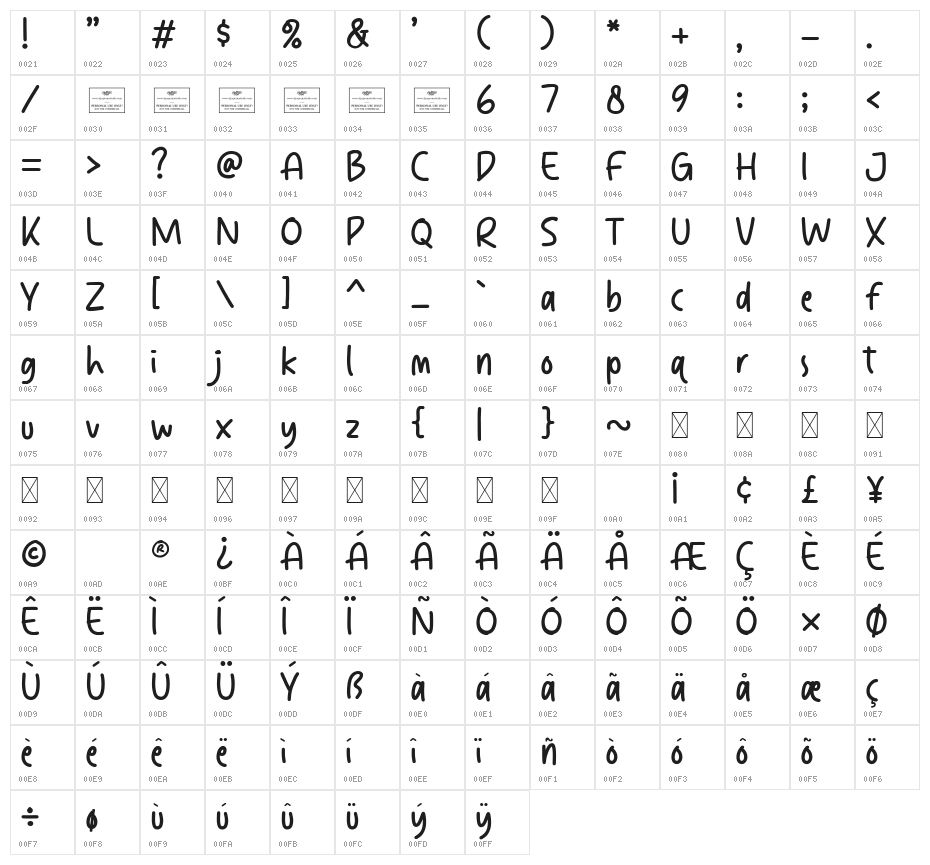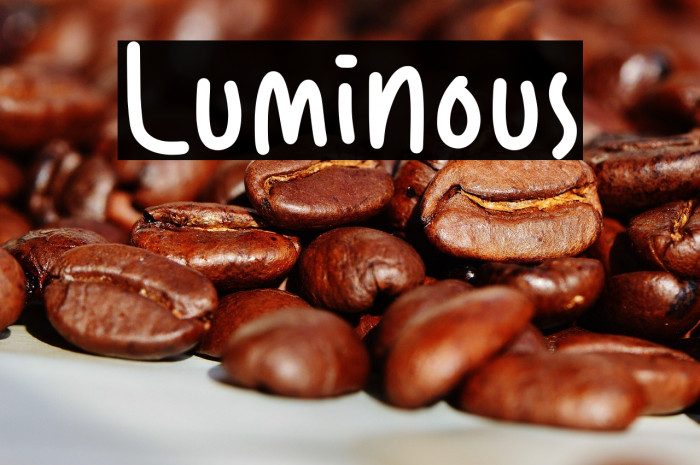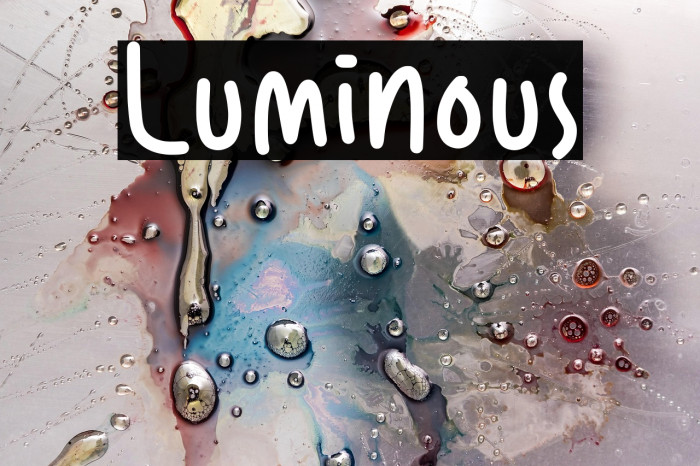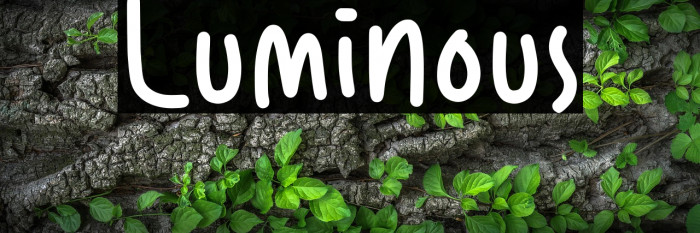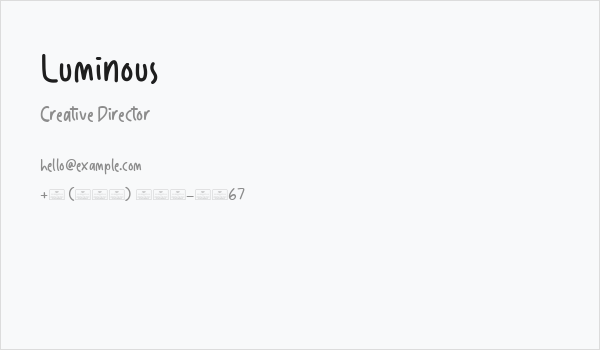
Luminous Font
Luminous Description
This font features a playful and casual handwritten style, characterized by smooth, rounded edges and a consistent stroke width. The letters are slightly slanted, giving a dynamic and informal feel. The uppercase and lowercase letters maintain a uniform height, contributing to a cohesive appearance. The numerals and special characters are designed to match the overall aesthetic, ensuring versatility across different uses. This font's approachable and friendly nature makes it suitable for a variety of creative projects.
| Proposed Projects | Ideal for greeting cards, children's books, casual branding, and social media graphics. |